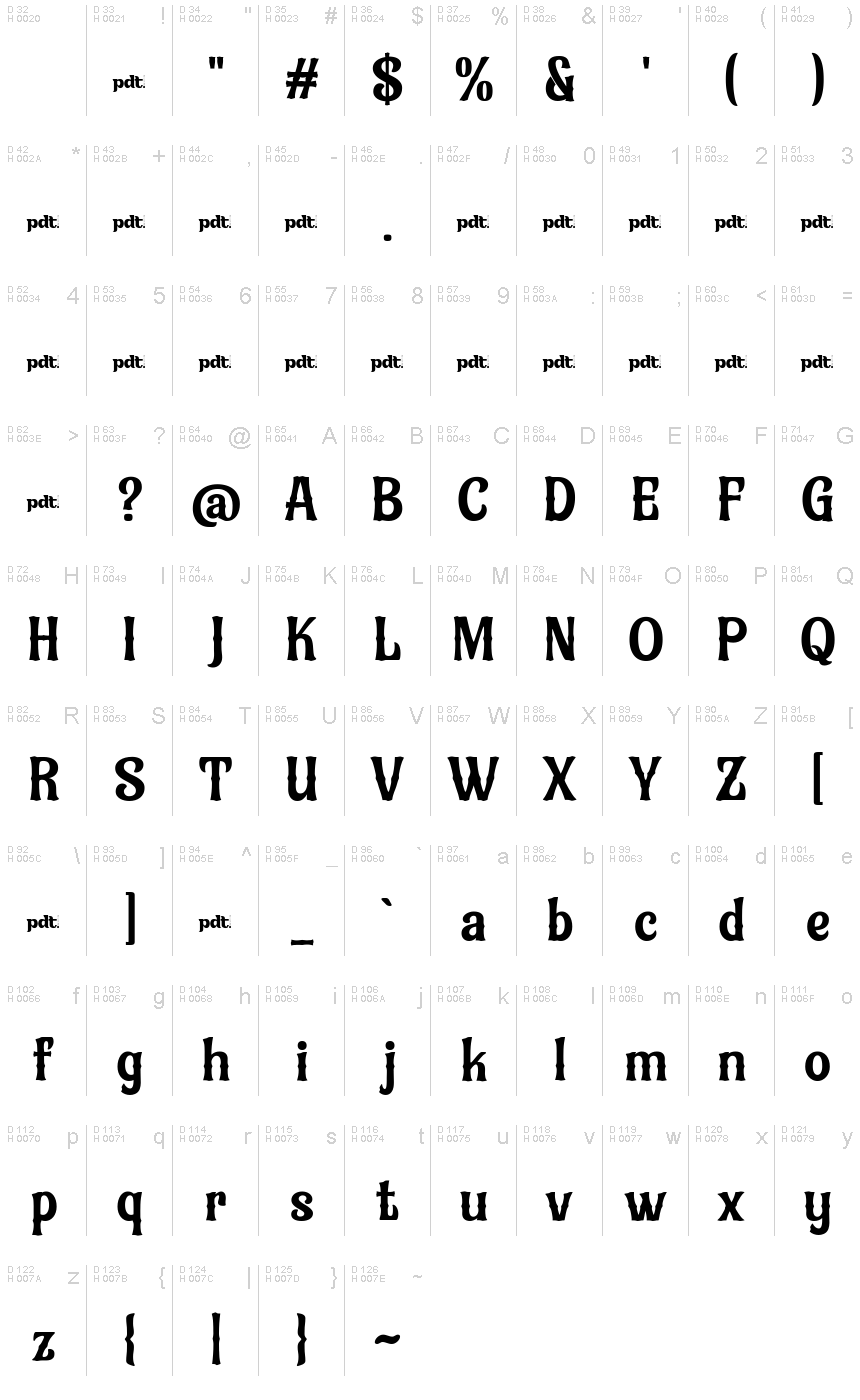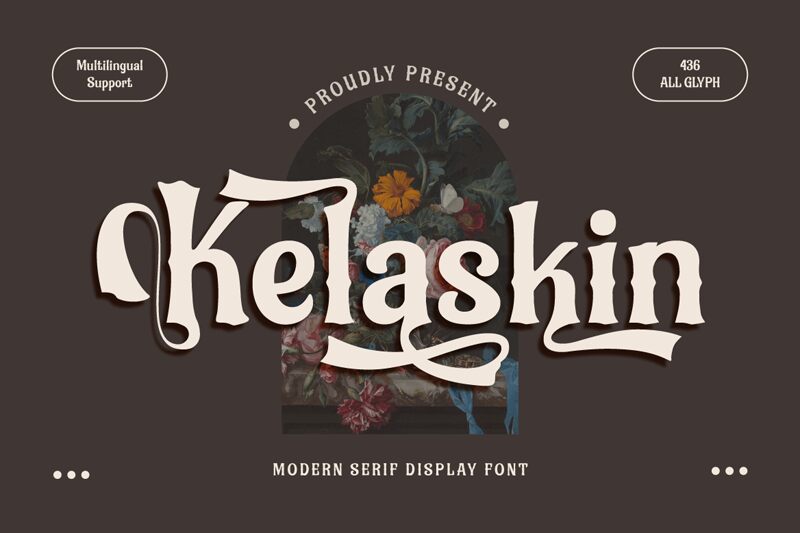
Kelaskin Regular
Kelaskin font by productype is a stunning retro display typeface that charms with graceful curves and fun ligatures. Its decorative style is derived from classic forms that are brought to life in high-contrast strokes and thick bold characters. The free font is decorated with captivating ends of letters, swirling tails, and beautiful imperfections between the uppercase and lowercase fonts.
Put Kelaskin typography to good use in logos, signage, packaging designs, labels for industrial products, or sports bars. Posters for theater performances or other entertaining live shows can also benefit from the gorgeous mood created by this exceptional font.